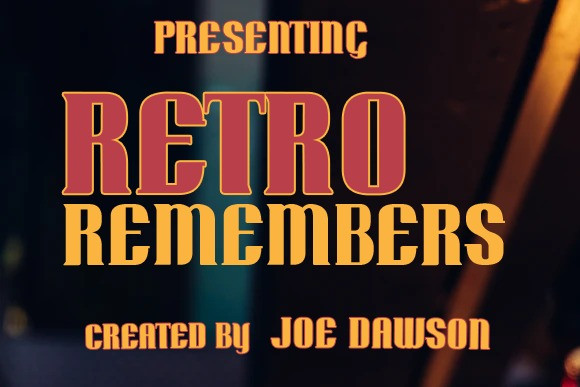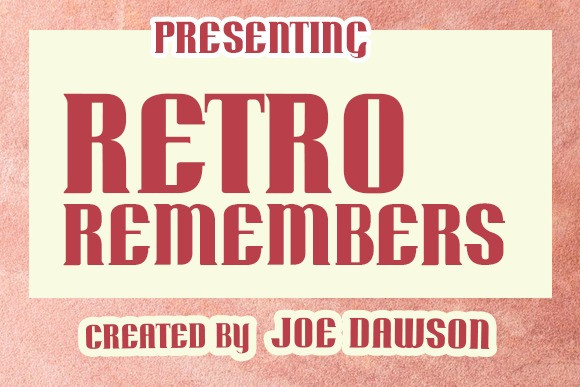
Ride And Race Display Font
RIDE AND RACE is a font that is very suitable for all activities, racing cars etc, with unique and precise line blocks to make the font simple and elegant for any situation.